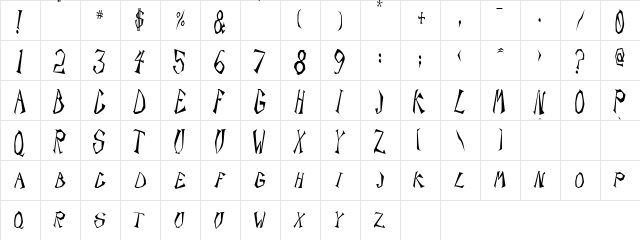
ScorpionCondensed Regular
Design Context for ScorpionCondensed Typeface
ScorpionCondensed is a composed and adaptable typeface that performs quietly and consistently across a wide range of design contexts. The condensed width makes it efficient for tight spaces without sacrificing legibility.